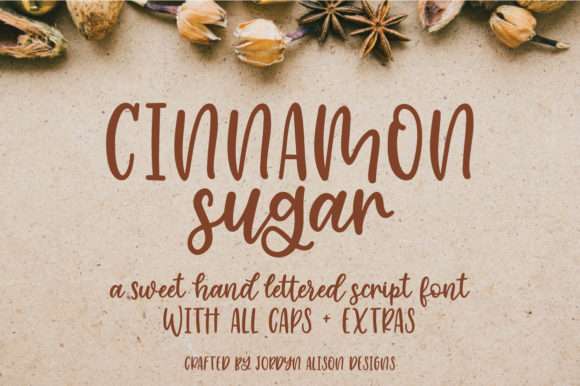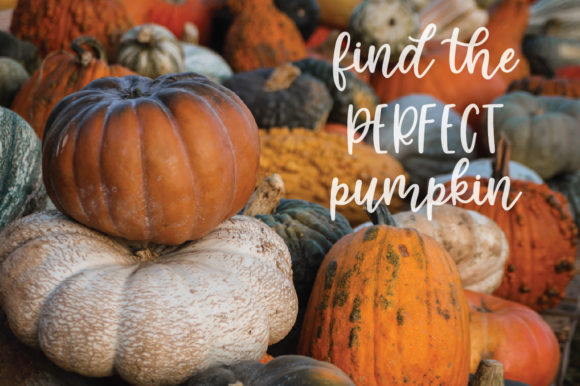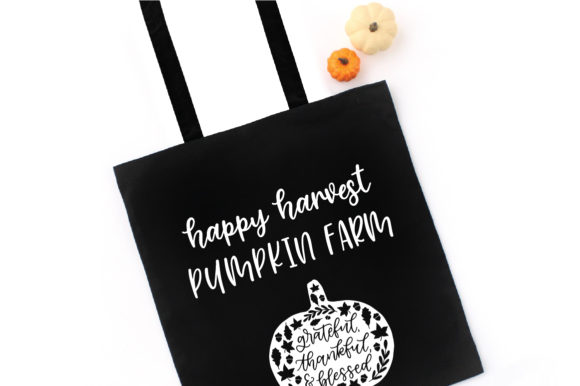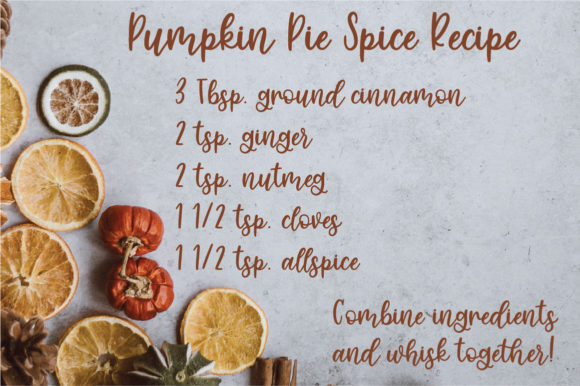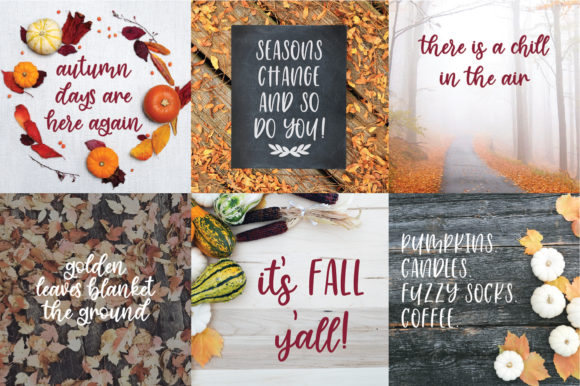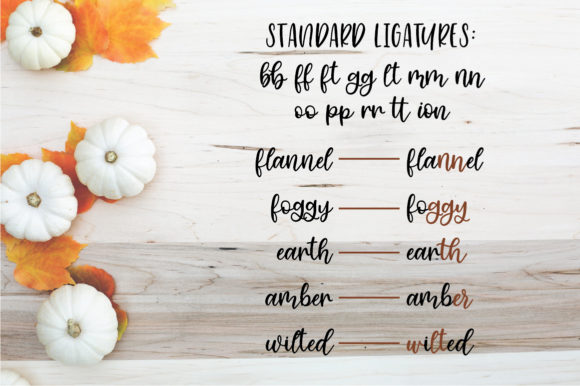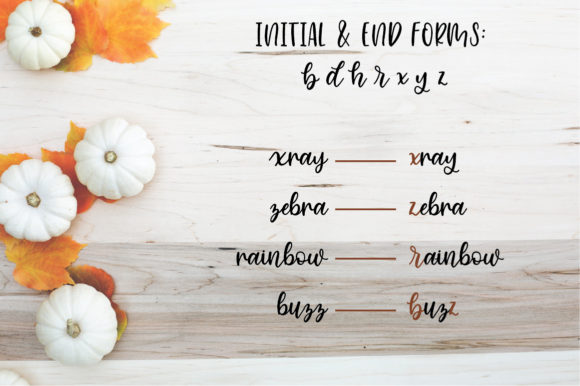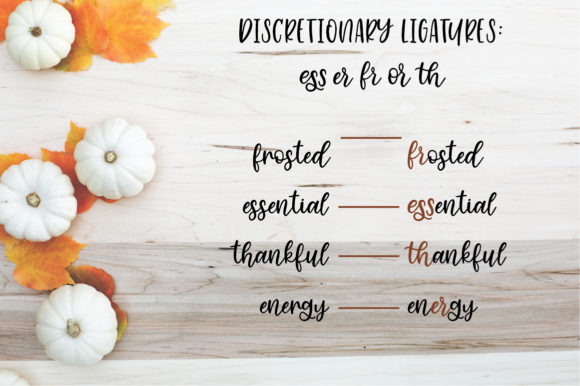
Cinnamon Sugar Script Font
About Cinnamon Sugar Script Font
The Cinnamon Sugar is a brand new hand lettered script font. It comes packed with ligatures, alternates, and more. It features a fun all caps that pairs wonderfully with the lowercase script font.